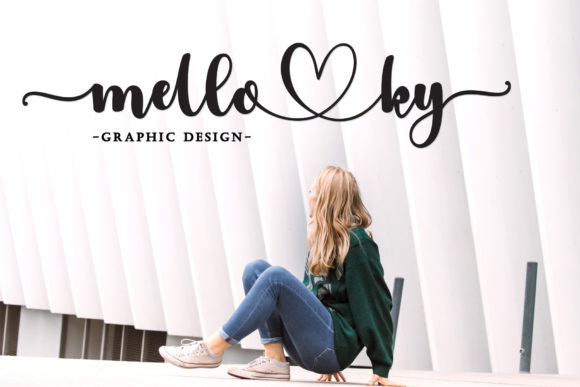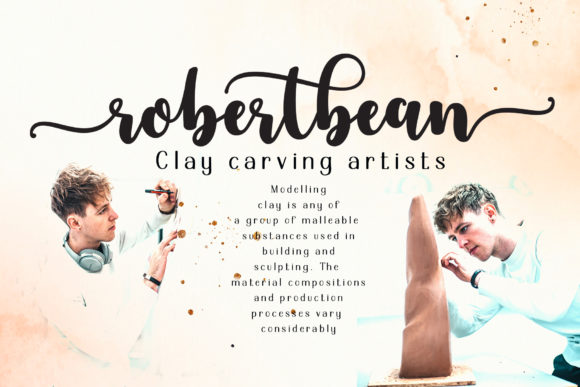
Nela Neta Font
db-ku.com - Script & Handwritten -- Nela Neta is a lovely and timeless handwritten font. It is the best choice for creating eye catching logos, branding and quotes. Every letter has a unique and beautiful touch, which will make your design come alive! This font is PUA encoded which means you can access all of the glyphs and swashes with ease!